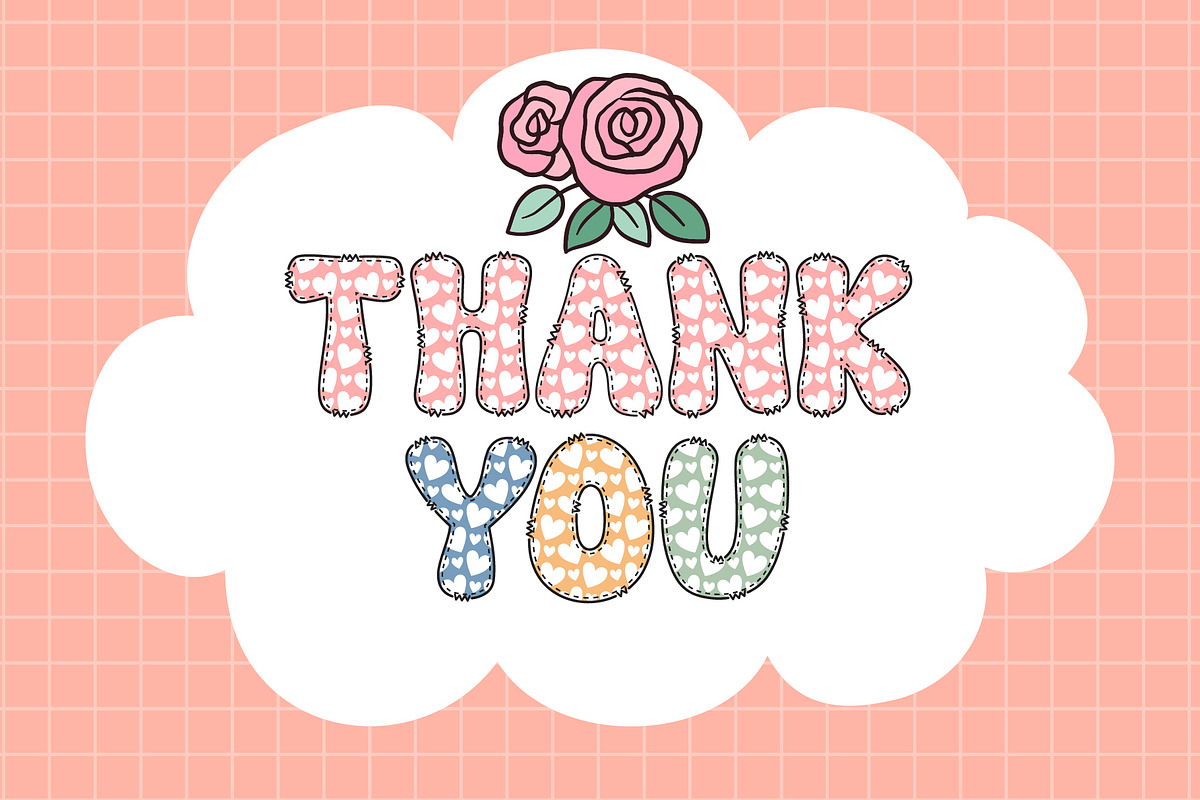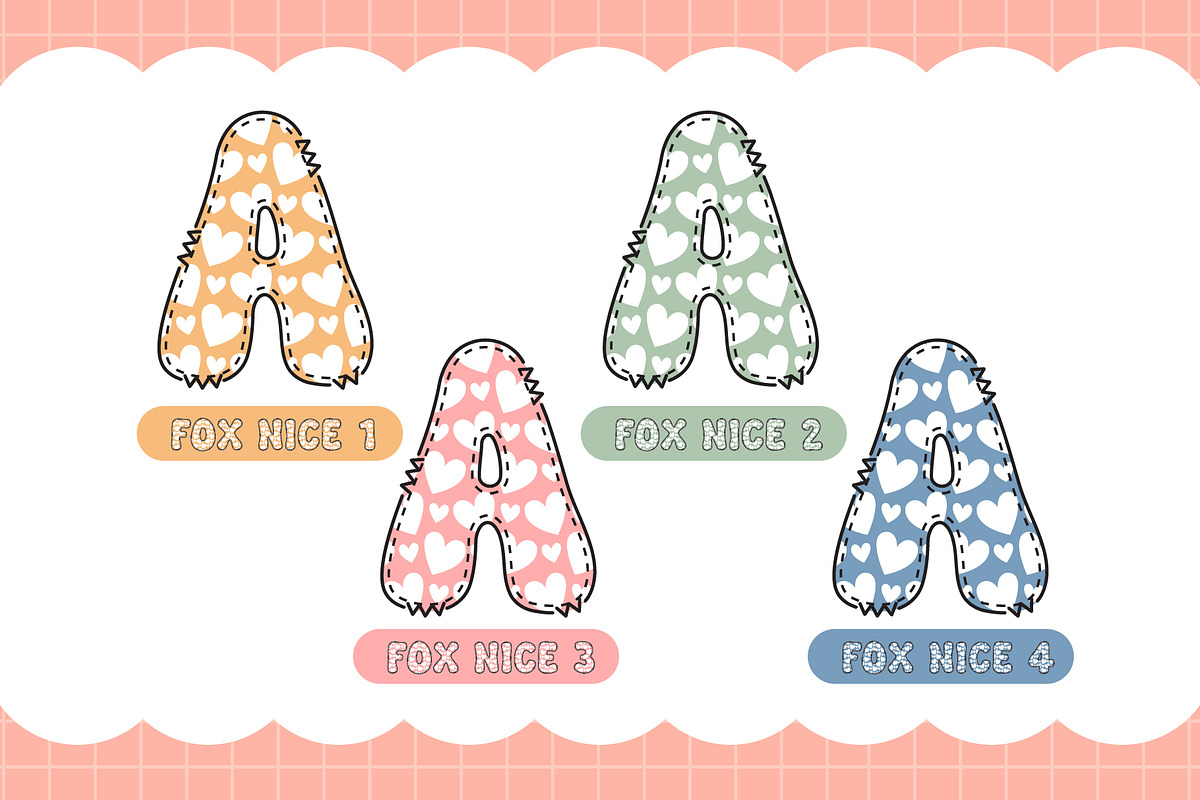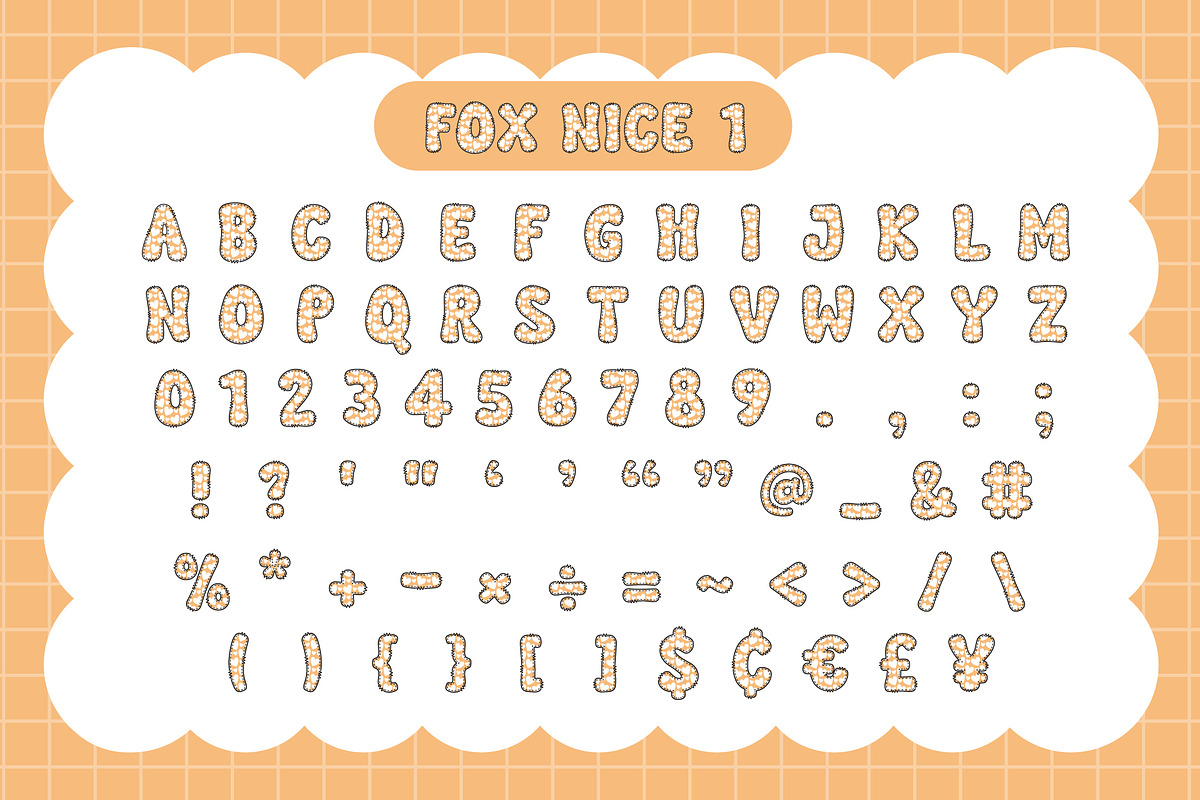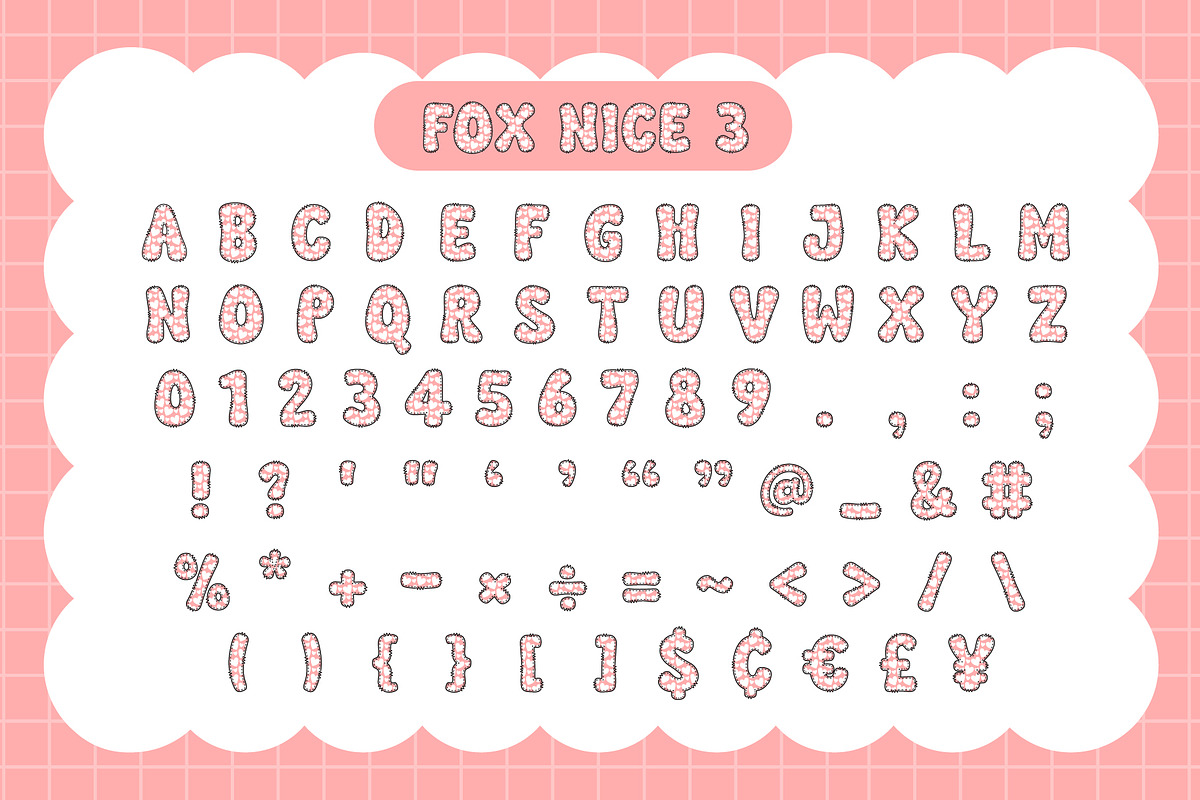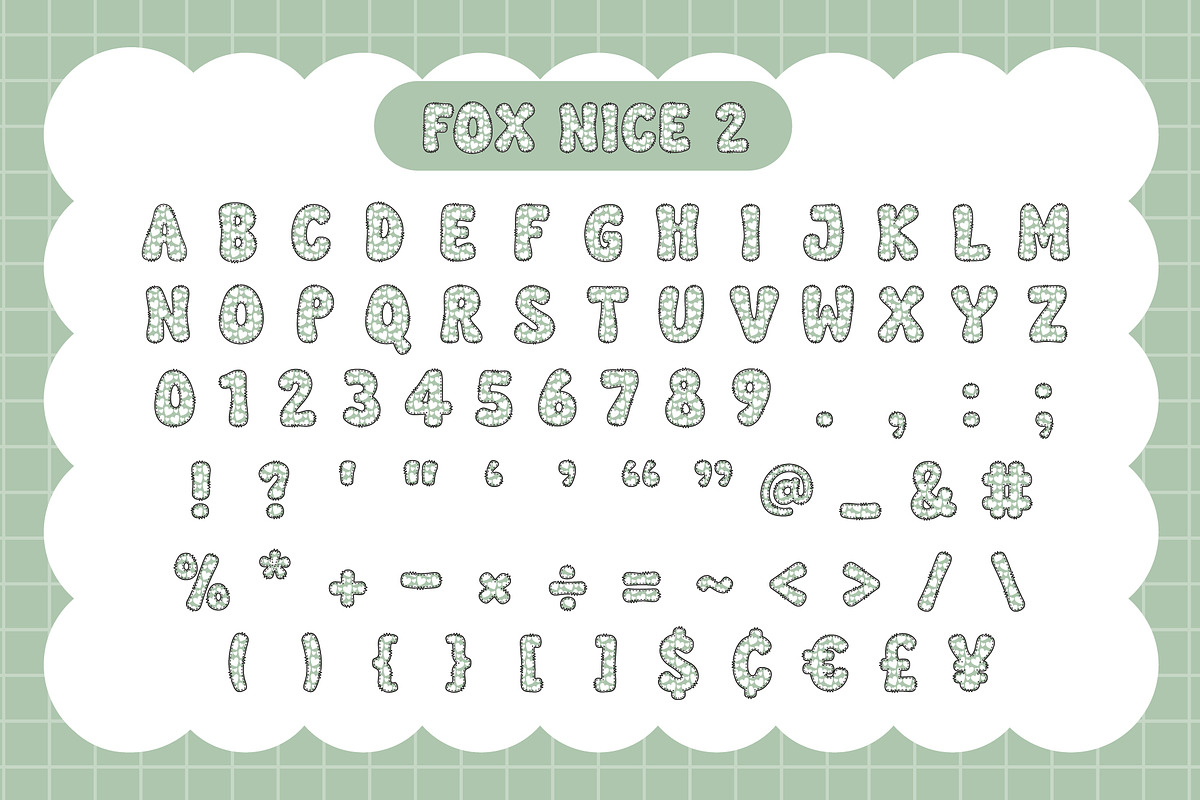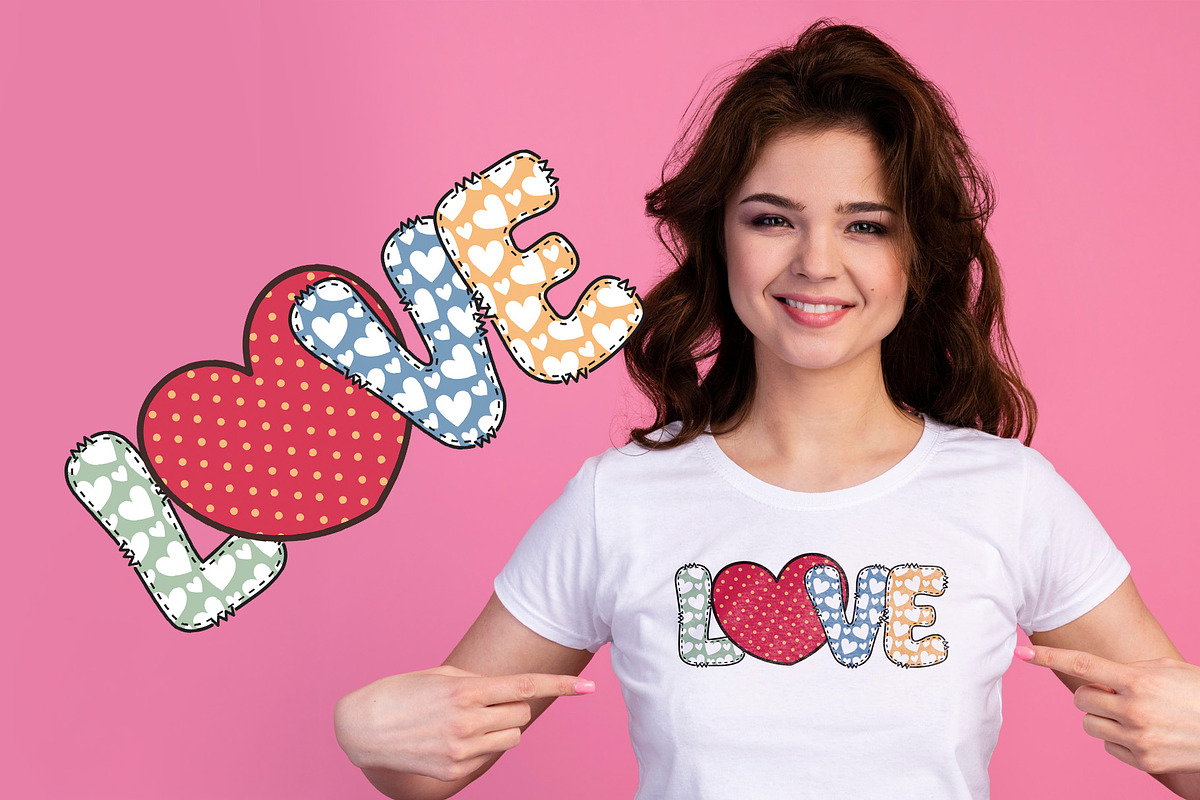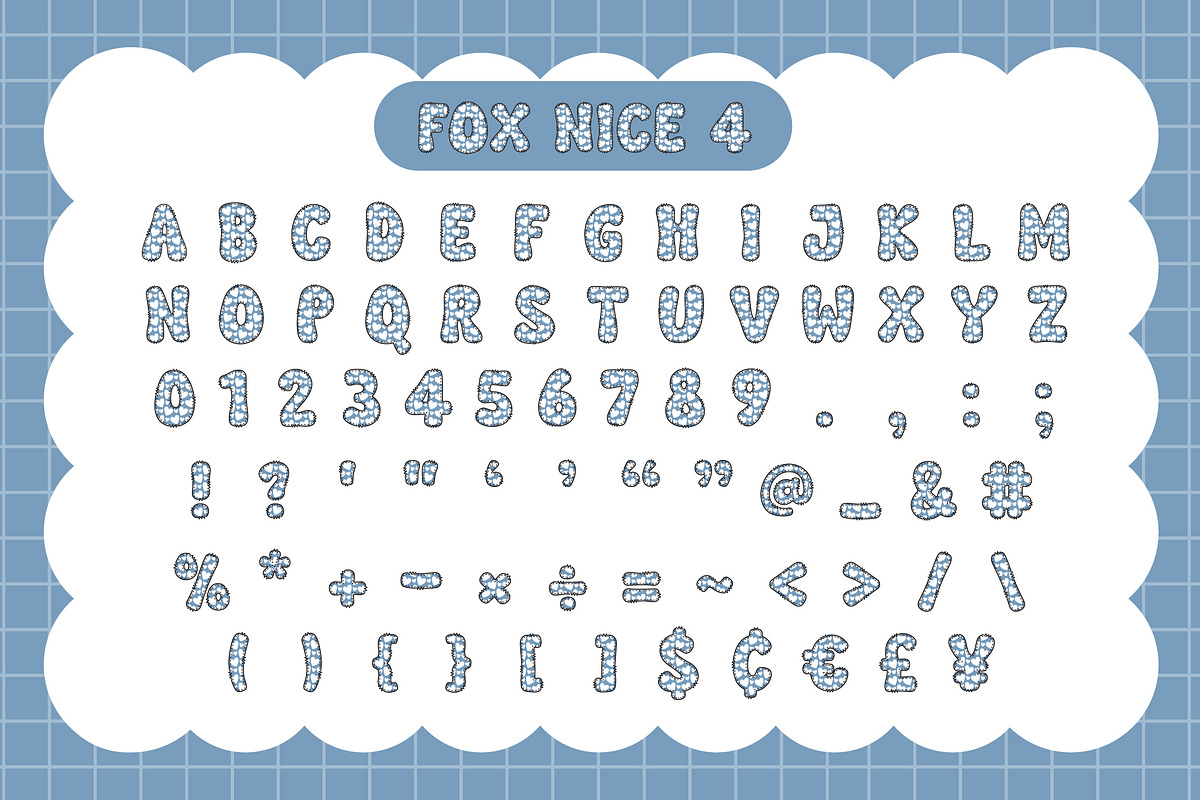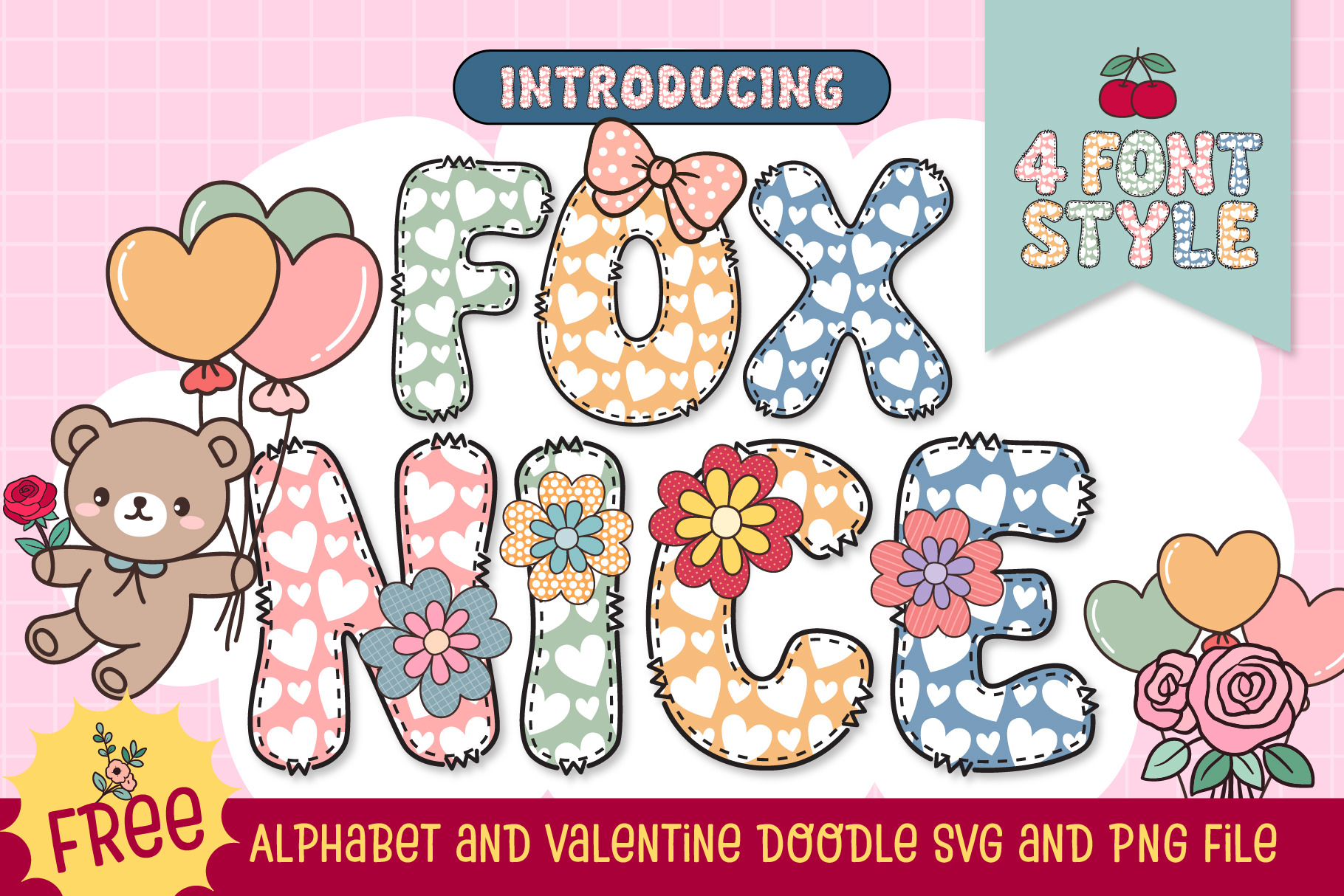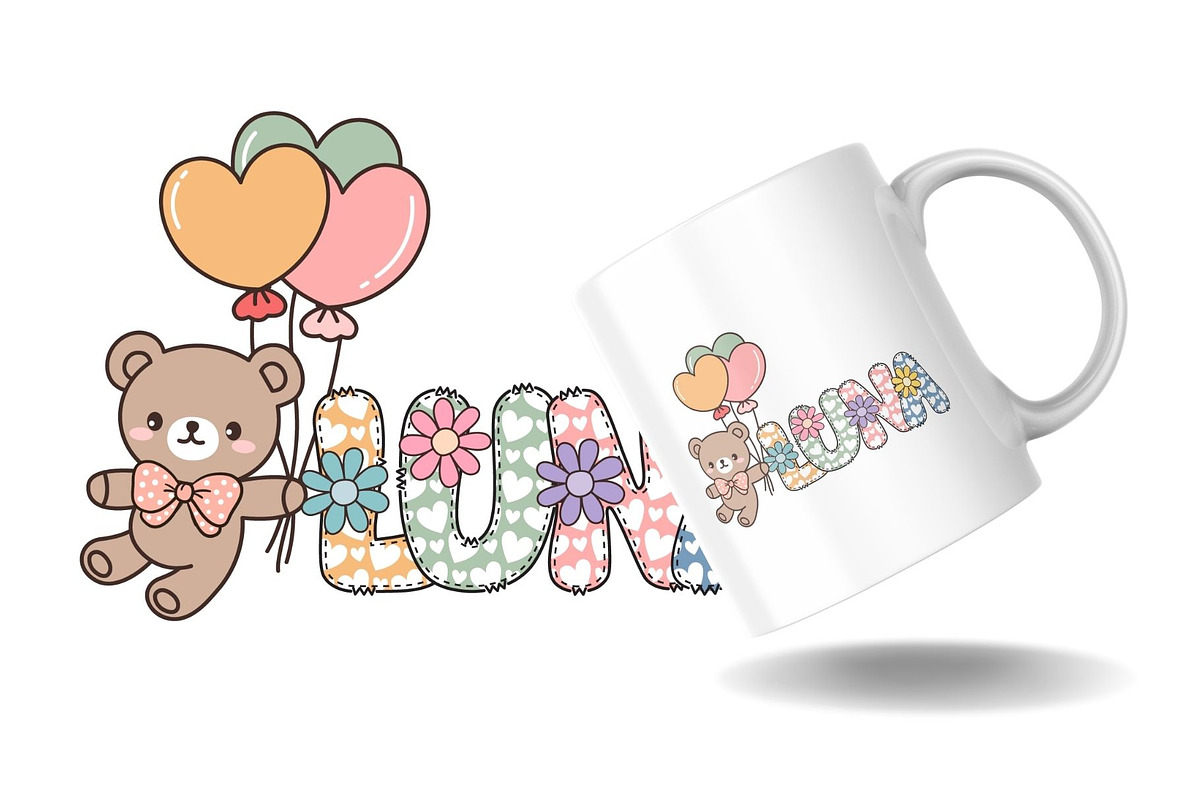
Fox Nice 4 Color Font Style
Fox Nice is a delightful and playful font adorned with a charming heart pattern, perfect for adding a touch of sweetness to any project. Available in OTF, TTF, WOFF2, SVG, and PNG formats, this font offers four lovely pastel colors to suit all your creative needs. Whether you're designing Valentine’s Day cards, wedding invitations, romantic quotes, Instagram posts, love letters, gift tags, or personalized stationery, Fox Nice helps you infuse every creation with love and warmth. As a bonus, this set includes 20 adorable Valentine-themed doodles in matching SVG and PNG formats, making it the perfect choice for spreading love in style.